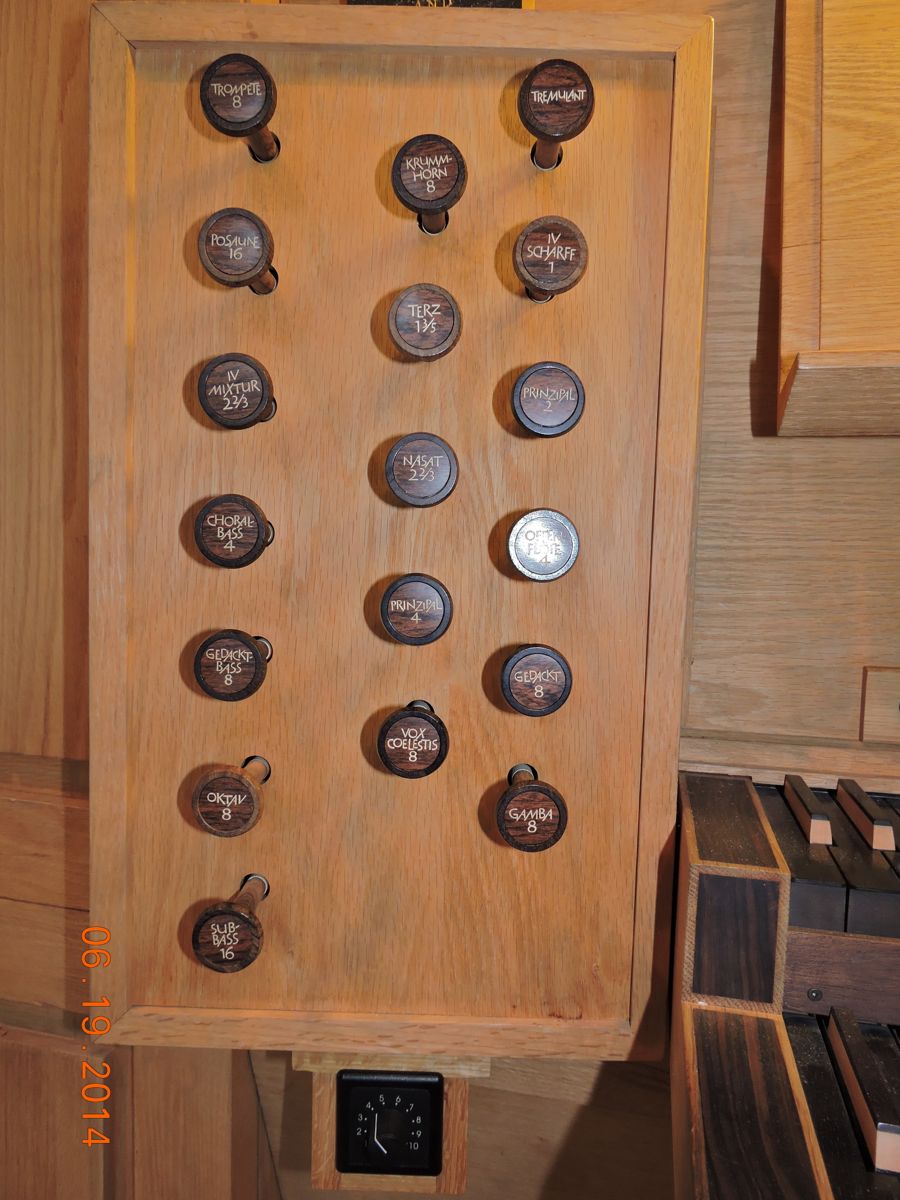
"Tribal" looking handwritten font with ragged baseline
I'm trying to find the font used on the stopknobs on this pipe organ built in 1981. The knobs could have been replaced during a later re-build, but I suspect that they're original – which would mean that this font was probably around before 1981.
It's just funky enough that it's entirely possible they're handwritten. However, some of the characters very consistent, which makes me think that it's probably a font with some alternate characters here and there.
None of the characters sit exactly on the baseline, and the handwritten appearance has a funky jungle/tribal vibe to it.